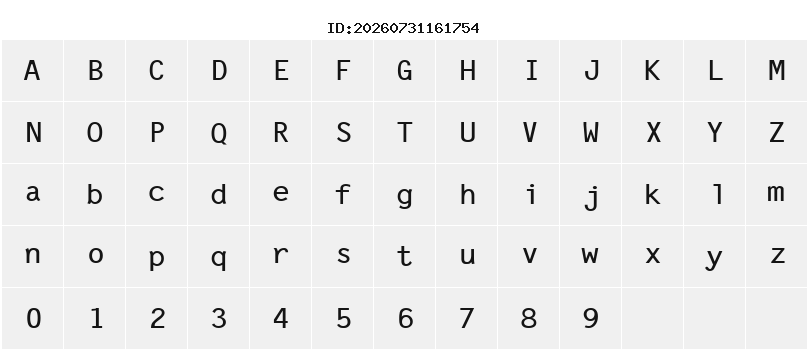
• Font Name: Letter Gothic Line
• Font Style: Monospace
• Full Font Name: Letter Gothic Line
About Letter Gothic Line.ttf
Letter Gothic Line.ttf is a modern, elegant sans-serif font designed for ultimate readability and visual harmony. Perfect for branding, headlines, web design, and print materials.